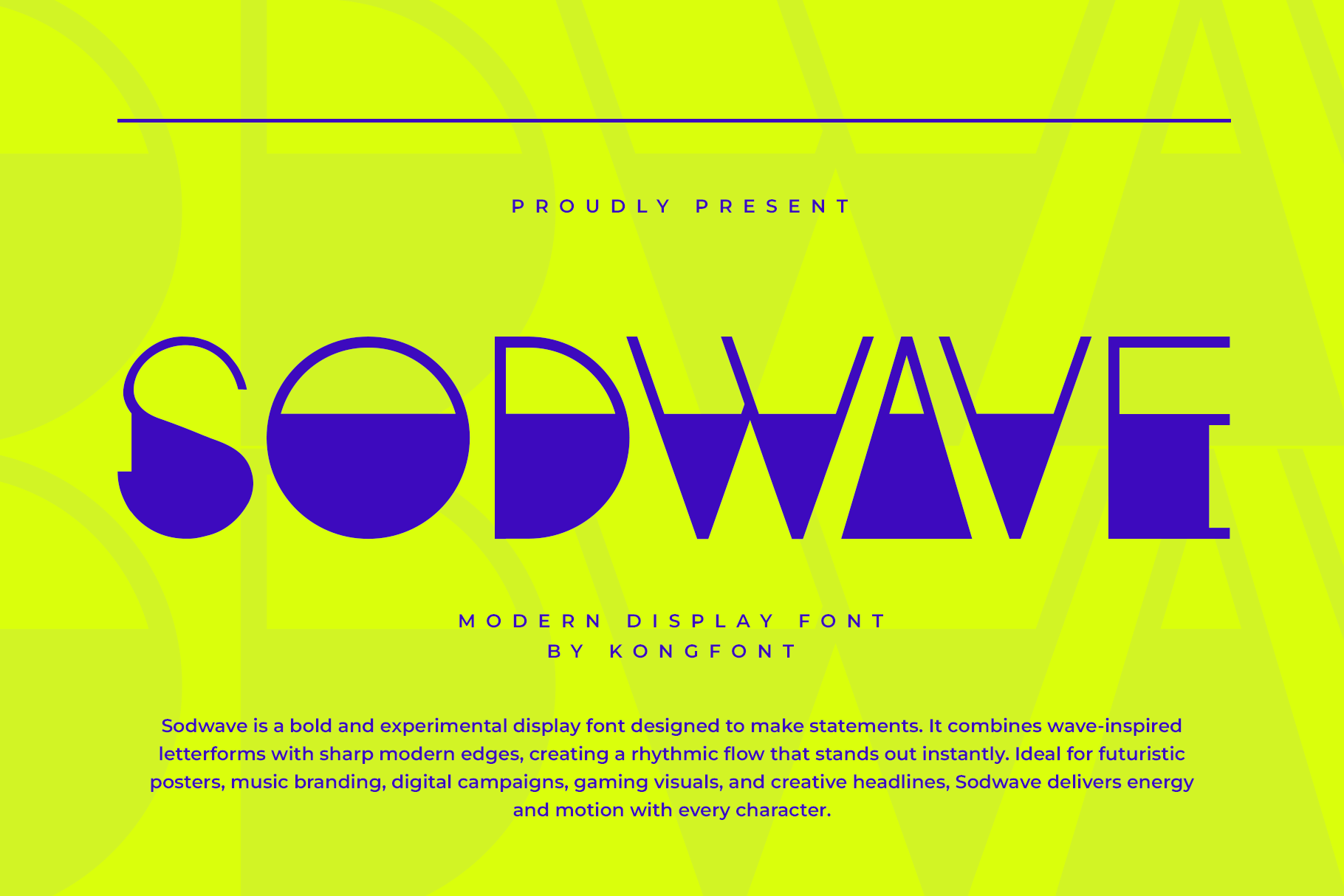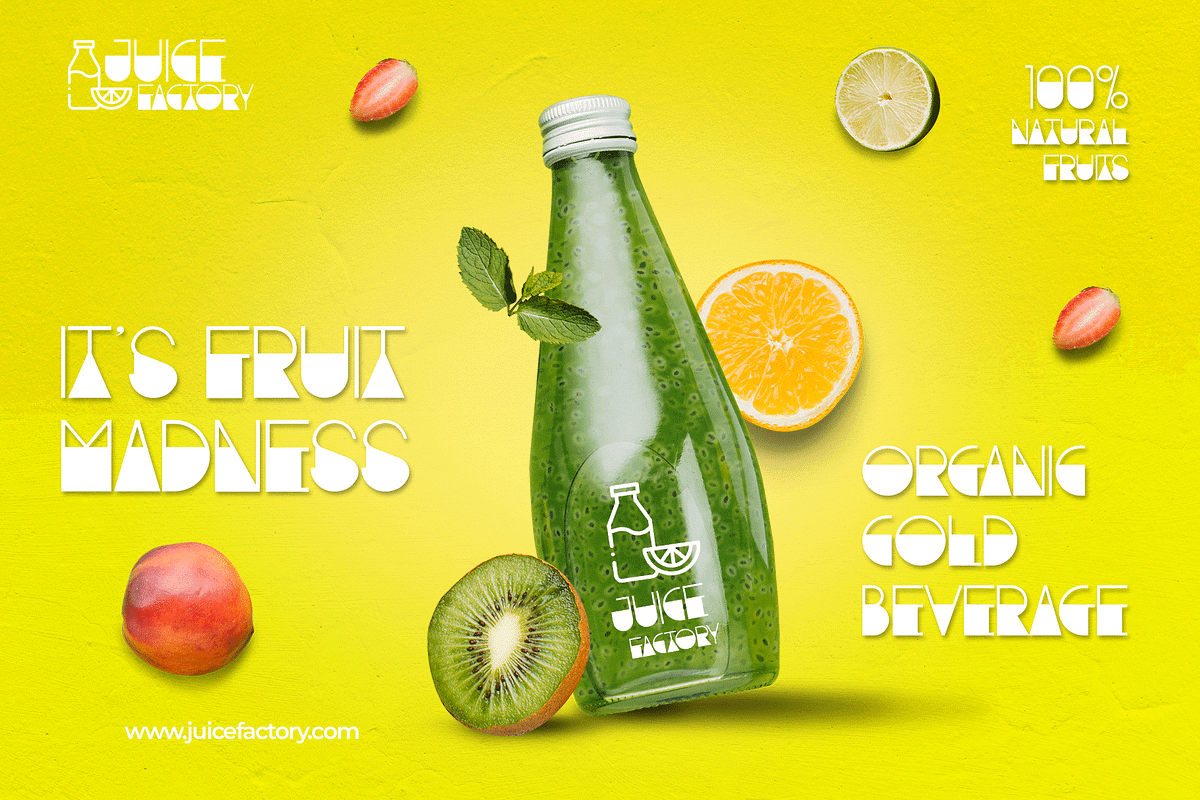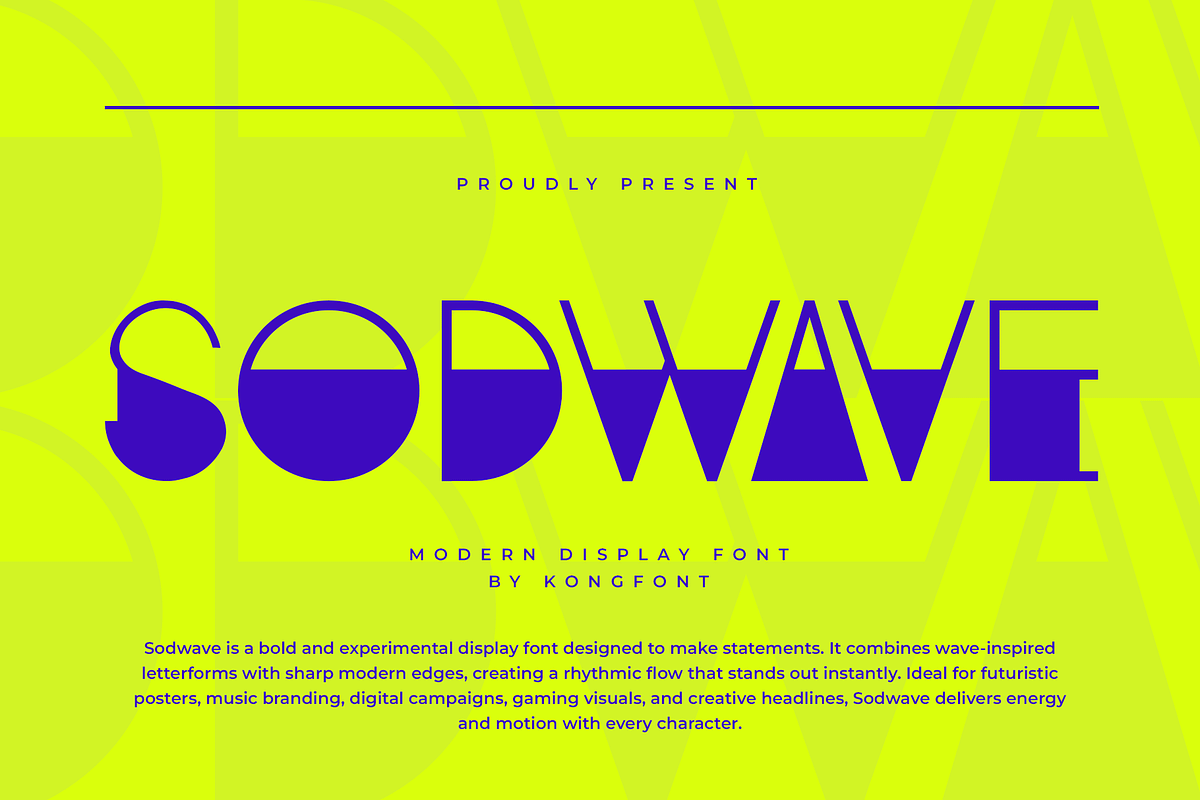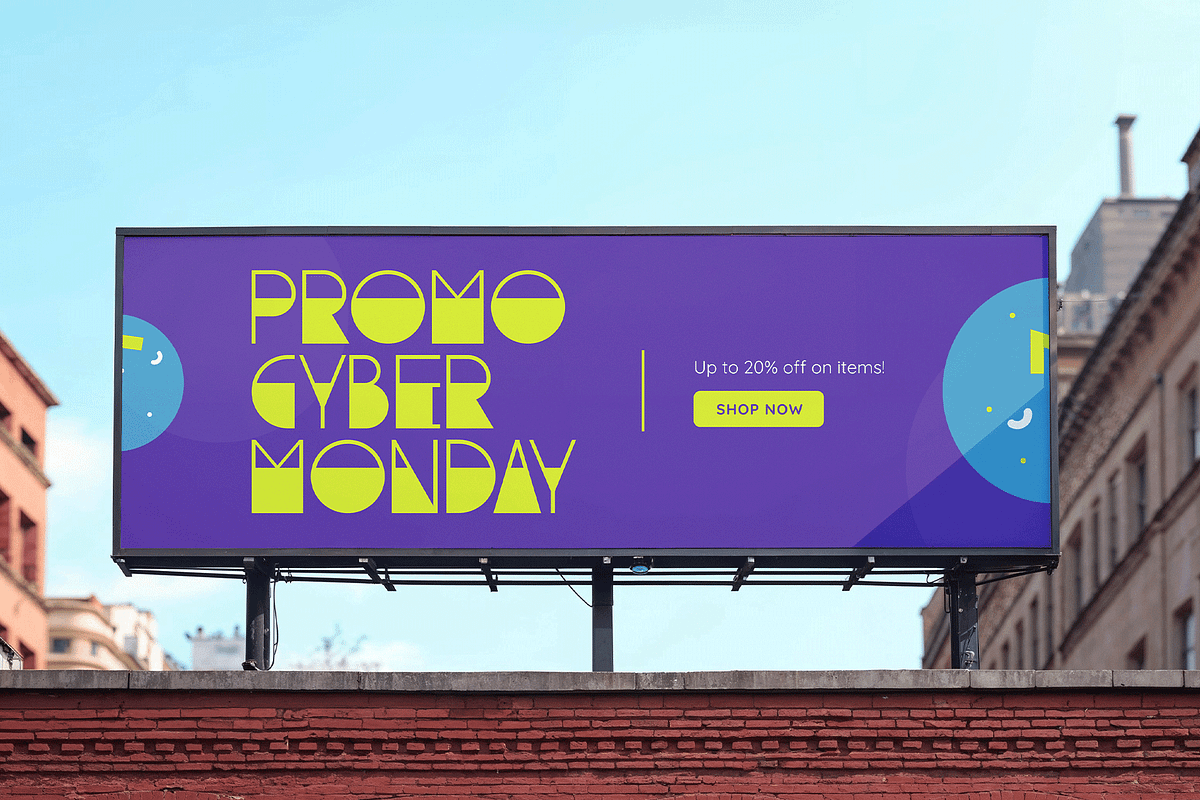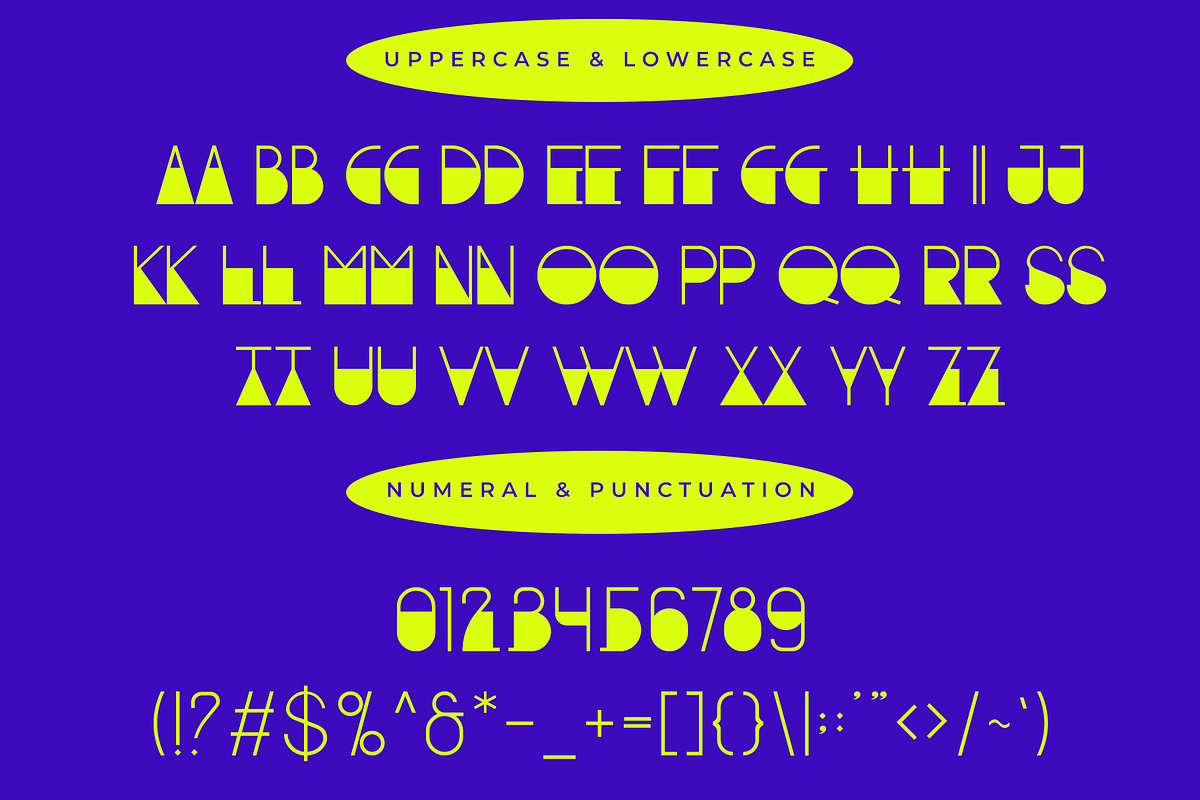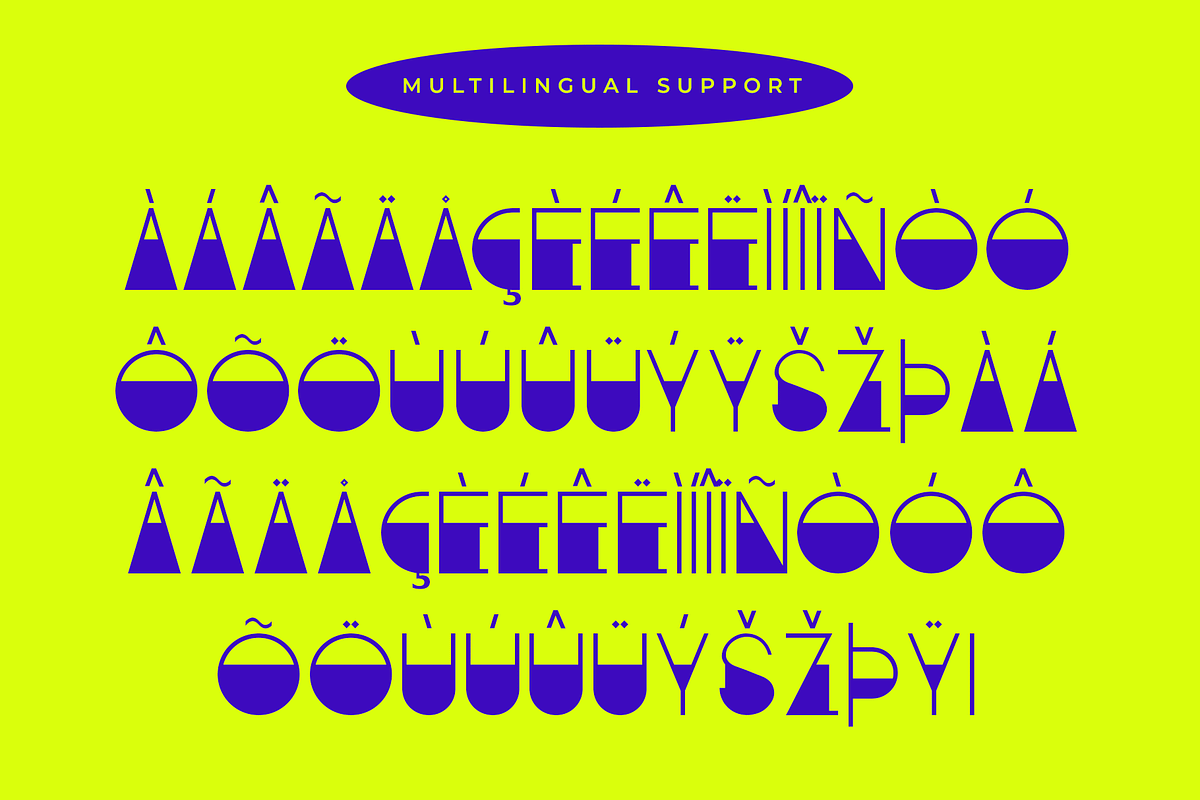
Sodwave - Modern Display Font
Introducing Sodwave, a modern display font designed to deliver bold personality and eye catching rhythm to any creative project. With its confident curves, dynamic shapes, and contemporary styling, Sodwave brings a fresh visual energy that instantly elevates headlines, logos, posters, and branding materials.
Crafted for designers who want to make a memorable statement, Sodwave features strong letterforms with smooth flow and balanced proportions. Its modern aesthetic makes it perfect for fashion branding, product packaging, digital content, social media graphics, event promotions, and creative advertising campaigns.